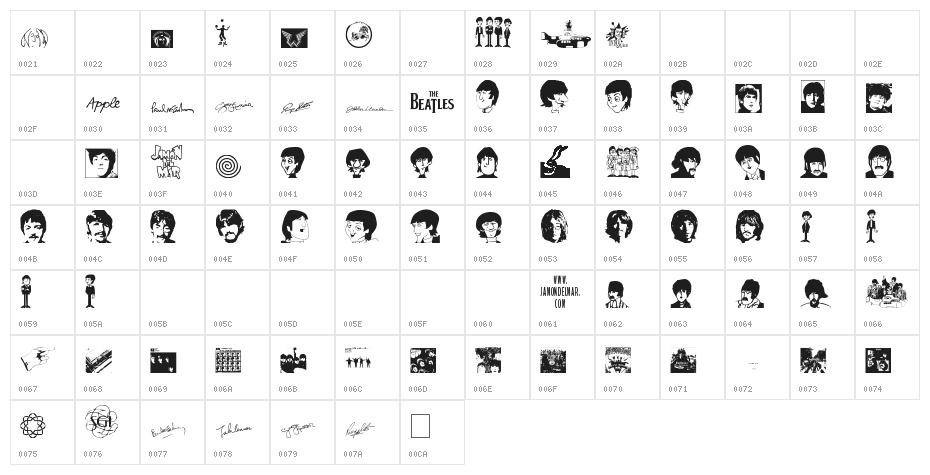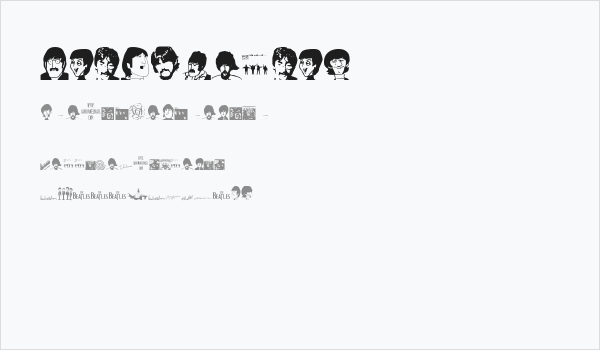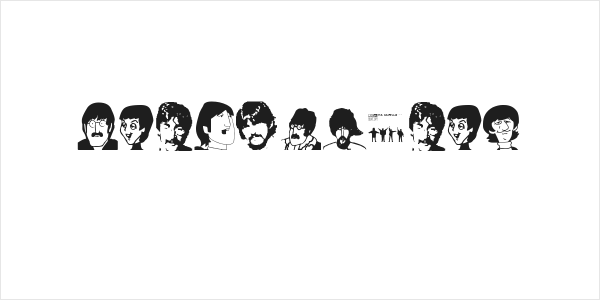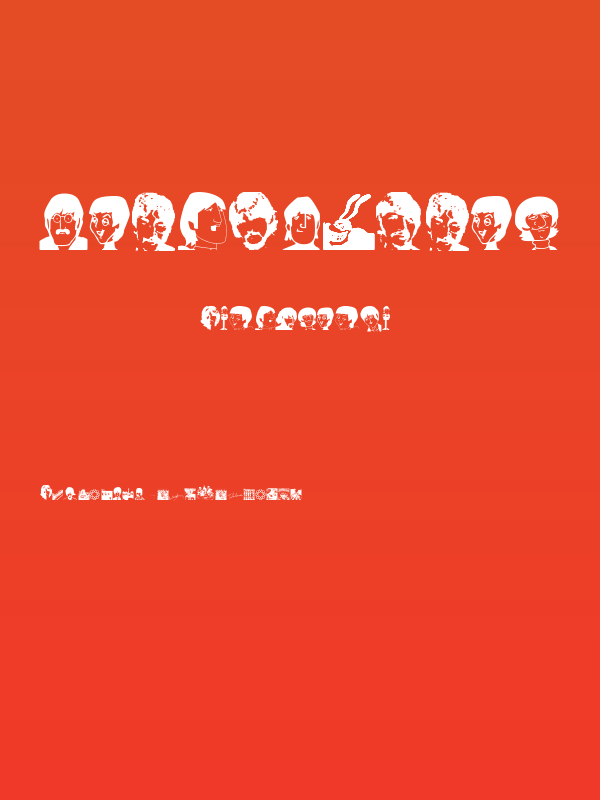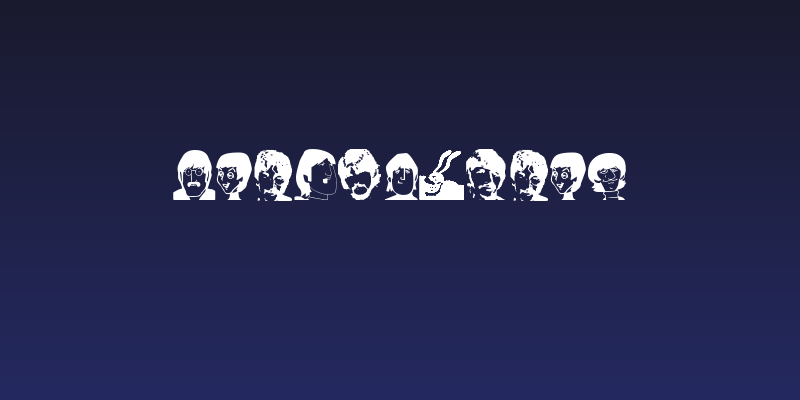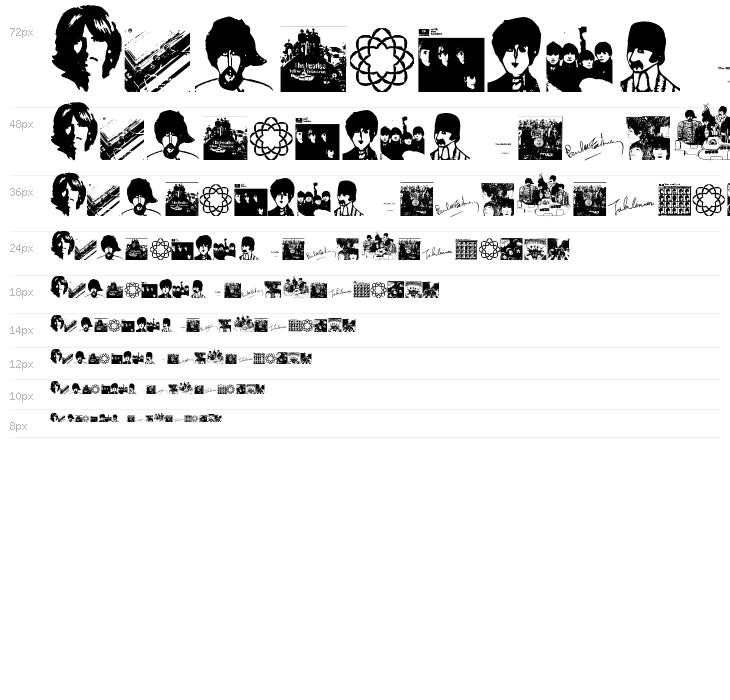
JAMON del MAR Font
JAMON del MAR Description
This is a decorative dingbat font featuring various illustrated caricatures, album covers, signatures, and iconic imagery related to The Beatles. The glyphs are highly stylized and pictorial, rather than traditional alphanumeric characters.
| Overall Style | Decorative, Thematic, Playful |
| Use Case | Logos, Posters, Themed Graphics, Scrapbooking |
| Proposed Projects | Music posters, fan art, themed party invitations, memorabilia, scrapbooking, and creative Beatles-related designs. |